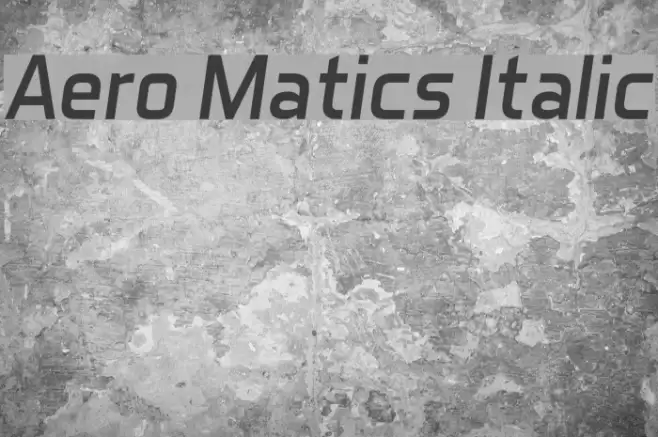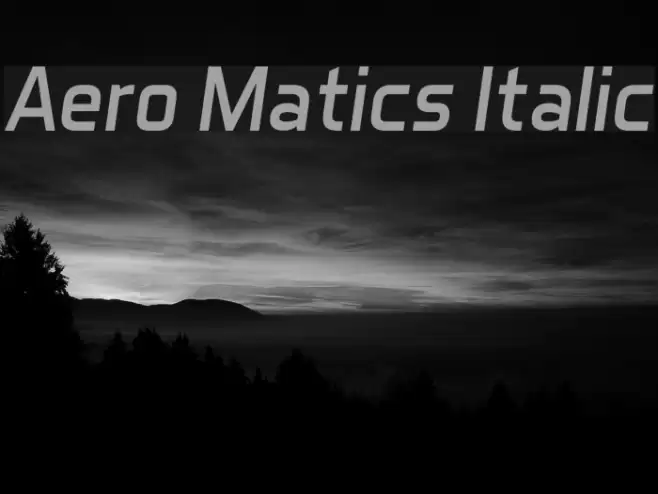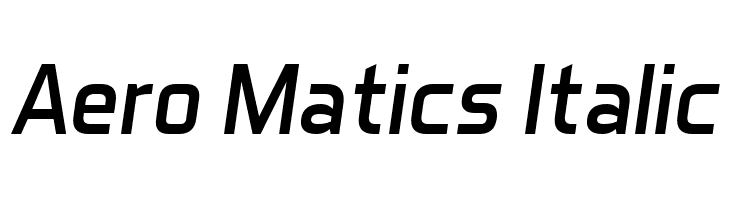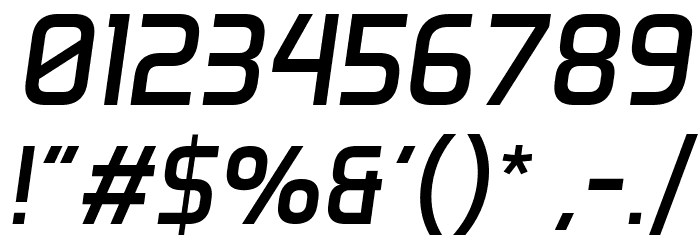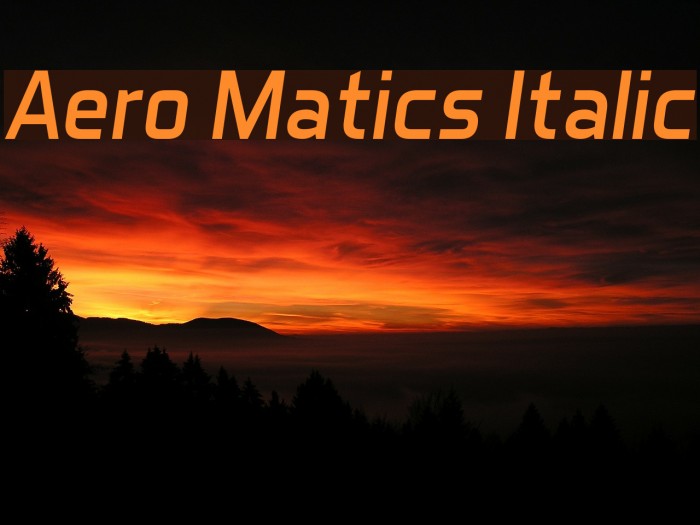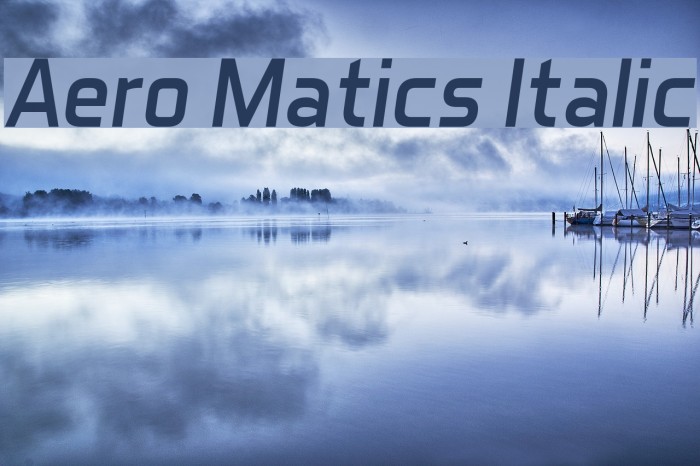
Aero Matics Italic Font
Aero Matics Italic Description
This font features a sleek, modern design with a distinctly italicized style, giving it a dynamic and forward-moving appearance. The characters are slightly condensed, contributing to a streamlined look that is both professional and stylish. The strokes are consistent in weight, providing a uniform appearance across all characters. The font maintains a medium contrast, ensuring readability while adding a touch of elegance. Its clean lines and contemporary aesthetic make it suitable for a variety of design applications.
A sleek, modern italic font with a streamlined and dynamic appearance from Uncategorized fonts.
- Proposed Projects: Ideal for use in branding, advertising, and editorial design, as well as for creating eye-catching headlines and logos.
- Use Case: Headlines, Logos, Branding